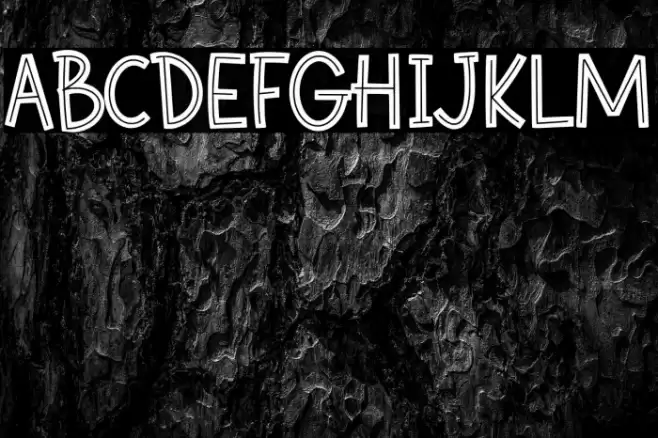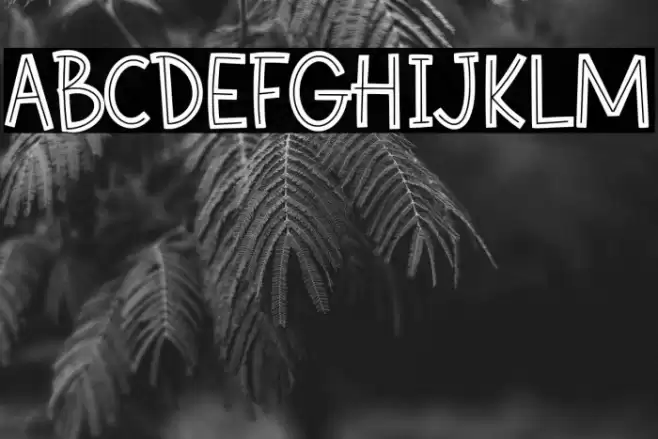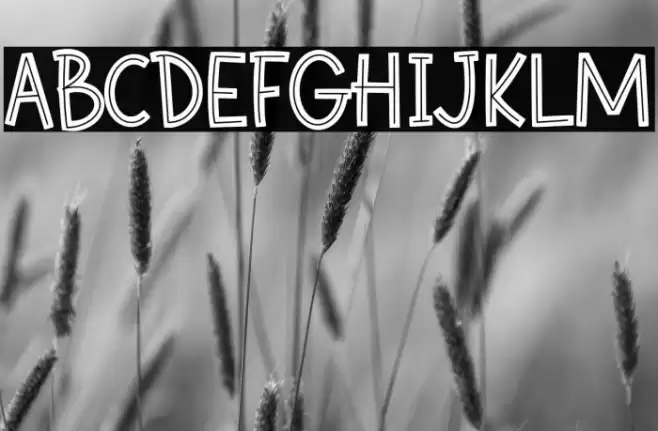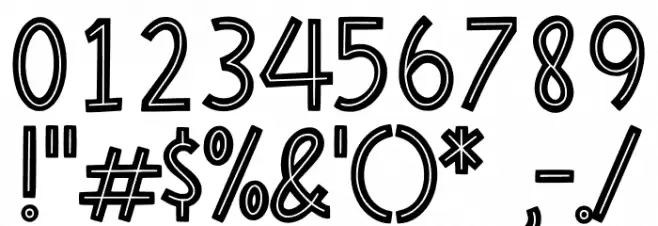
Mocha Cherry In Line Demo Font
Mocha Cherry In Line Demo Description
This font features a playful and bold design with an outlined style that gives each character a unique, hand-drawn appearance. The letters are uppercase and lowercase, with numbers and a variety of special characters included. The strokes are consistent in width, creating a uniform look across all characters. The font has a whimsical and informal feel, making it ideal for creative projects. The spacing between characters is moderate, ensuring readability while maintaining its distinctive style. This font is perfect for projects that require a fun and engaging visual element.
A playful, outlined font with a hand-drawn, whimsical style from Cartoon fonts.
- Font: Mocha Cherry In Line Demo
- Proposed Projects: Ideal for children's books, playful branding, posters, and creative invitations.
- Overall Style: Playful, Whimsical, Hand-drawn
- Use Case: Headlines, Posters, Creative Projects